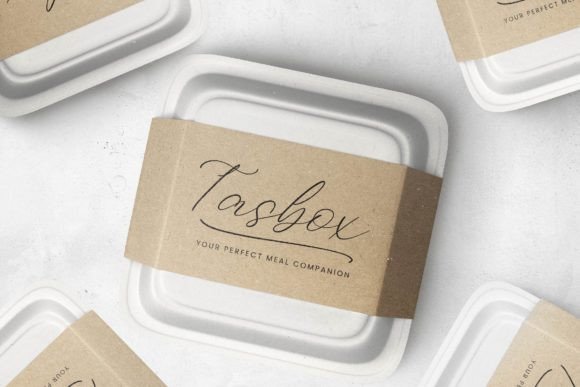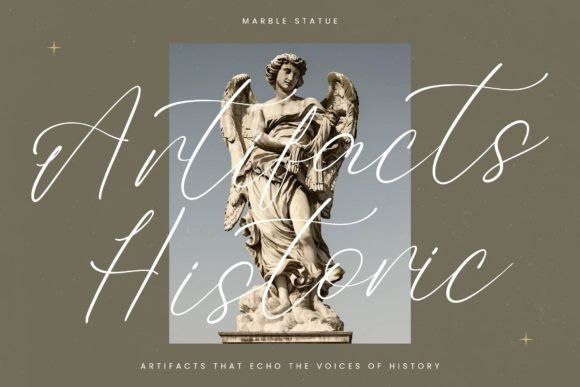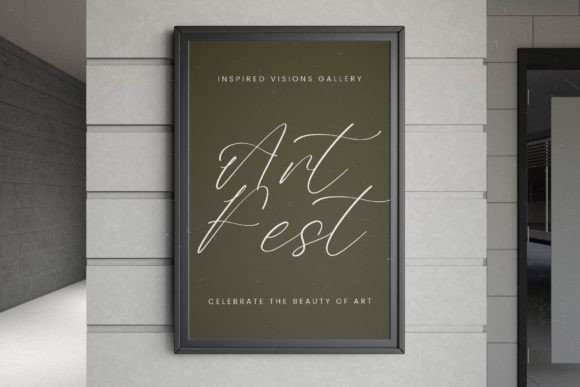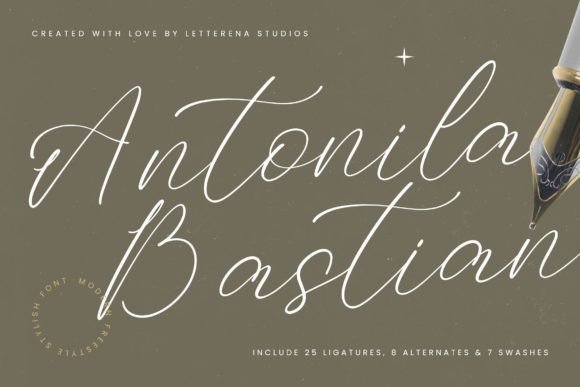
The Elusive Luxury Script: How Antonila Bastian Font Became My Go-To
I still remember the frustration of working on a luxury branding project, determined to find the perfect font that exuded elegance and sophistication. My client wanted a logo that would make their high-end homeware designs stand out, but every font I tried seemed to fall flat. That was until I stumbled upon Antonila Bastian Font – a modern freestyle stylish script from Letterena that instantly elevated my designs.
Antonila Bastian Font: A Luxury Script for the Win
Antonila Bastian Font is a versatile luxury script font, perfect for a wide range of projects, including logos, branding, homeware designs, product packaging, and more. Its elegant, flowing lines and beautiful swashes make it an excellent choice for designers, crafters, and creative hobbyists looking to add a touch of sophistication to their work.
- ✨ Elegant and sophisticated design
- ✅ Highly versatile and adaptable to various projects
- 💫 Beautiful swashes and glyphs for added creativity
- 🎉 Excellent for logos, branding, and high-end designs
While Antonila Bastian Font is an exceptional font, there are a few things to keep in mind:
- ⚠️ May require some adjustments for optimal use in certain software
- 🤔 Limited availability of certain glyphs or swashes in some applications
Antonila Bastian Font was inspired by the beauty of handwritten scripts and the elegance of luxury branding. The font’s creator aimed to craft a font that would evoke the feeling of high-end design, while still being versatile and adaptable to various projects.
| Font Name | Antonila Bastian Font |
| Author | Letterena Studios |
Q: What type of projects is Antonila Bastian Font best suited for?
A: Antonila Bastian Font is perfect for luxury branding, logos, homeware designs, product packaging, and any project that requires a sophisticated, elegant touch.
Q: Is Antonila Bastian Font available in different styles or variations?
A: Yes, Antonila Bastian Font comes with various OpenType features, including swashes, glyphs, and stylistic alternates, allowing you to experiment with different styles and variations.